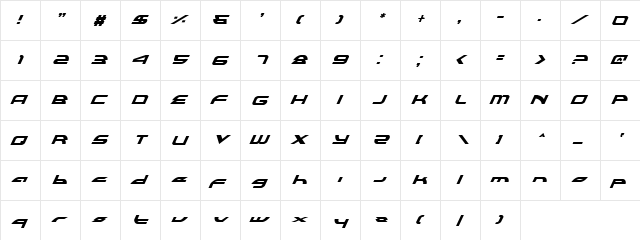
Alexis Lower Case Italic Lower Case Italic
Design Context for Alexis Lower Case Italic Typeface
Alexis Lower Case Italic offers clean, dependable letterforms without strong stylistic allegiance, making it a practical choice for designers who need flexibility. Its italic angle brings a sense of urgency and motion to the letterforms.
Pro Tip: Use Alexis Lower Case Italic for emphasis, pull quotes, and subheadings where its slanted energy can add rhythm to the layout.